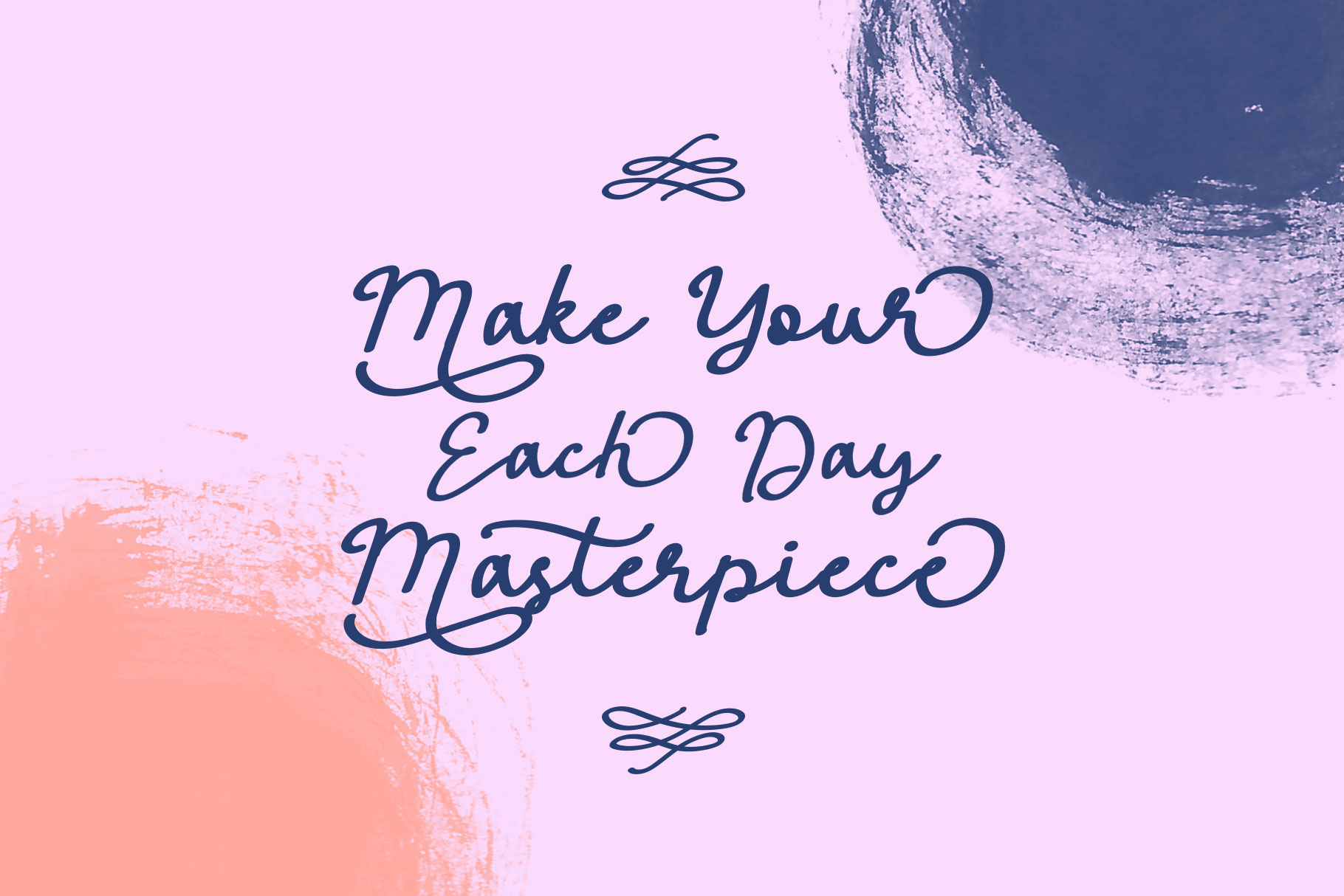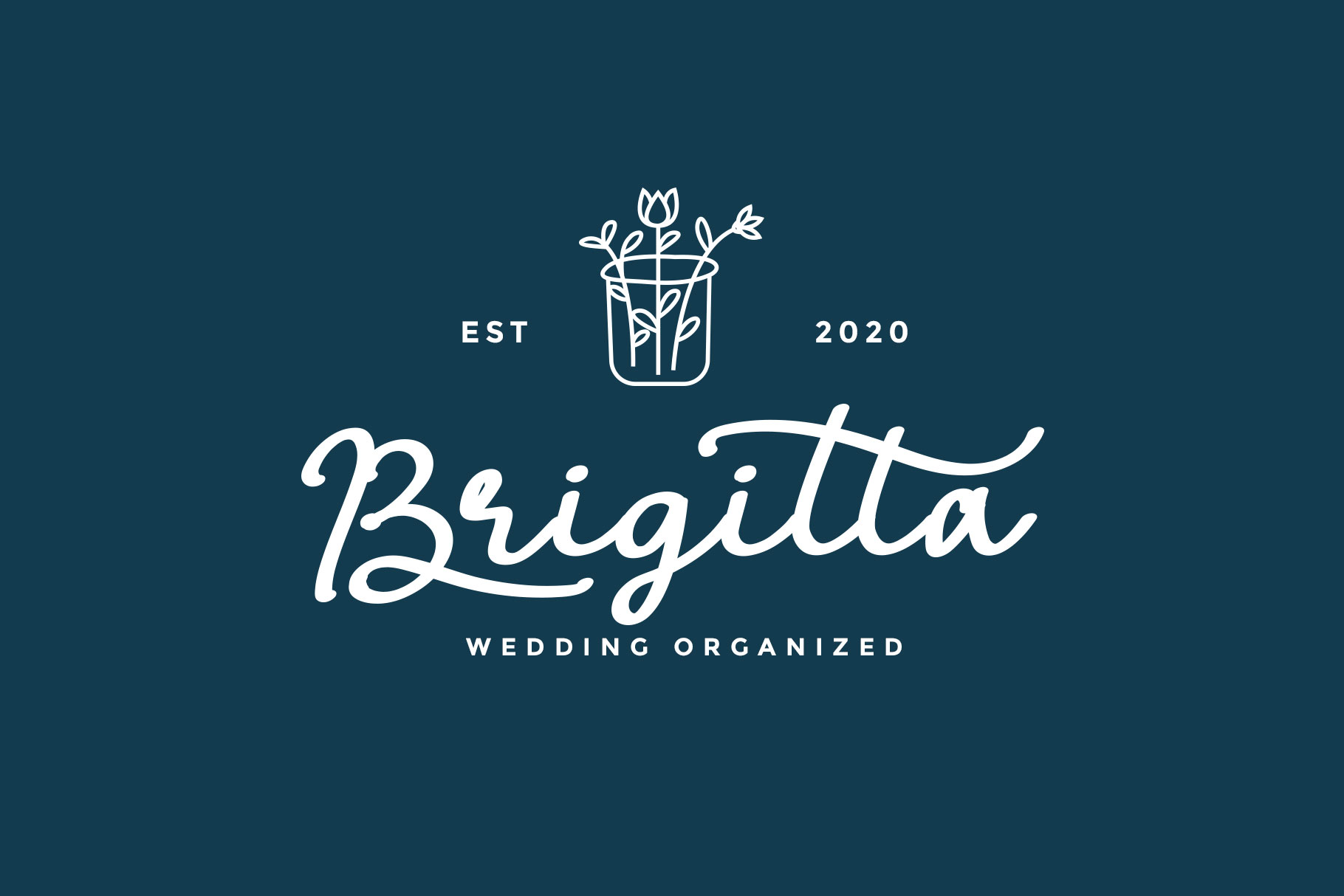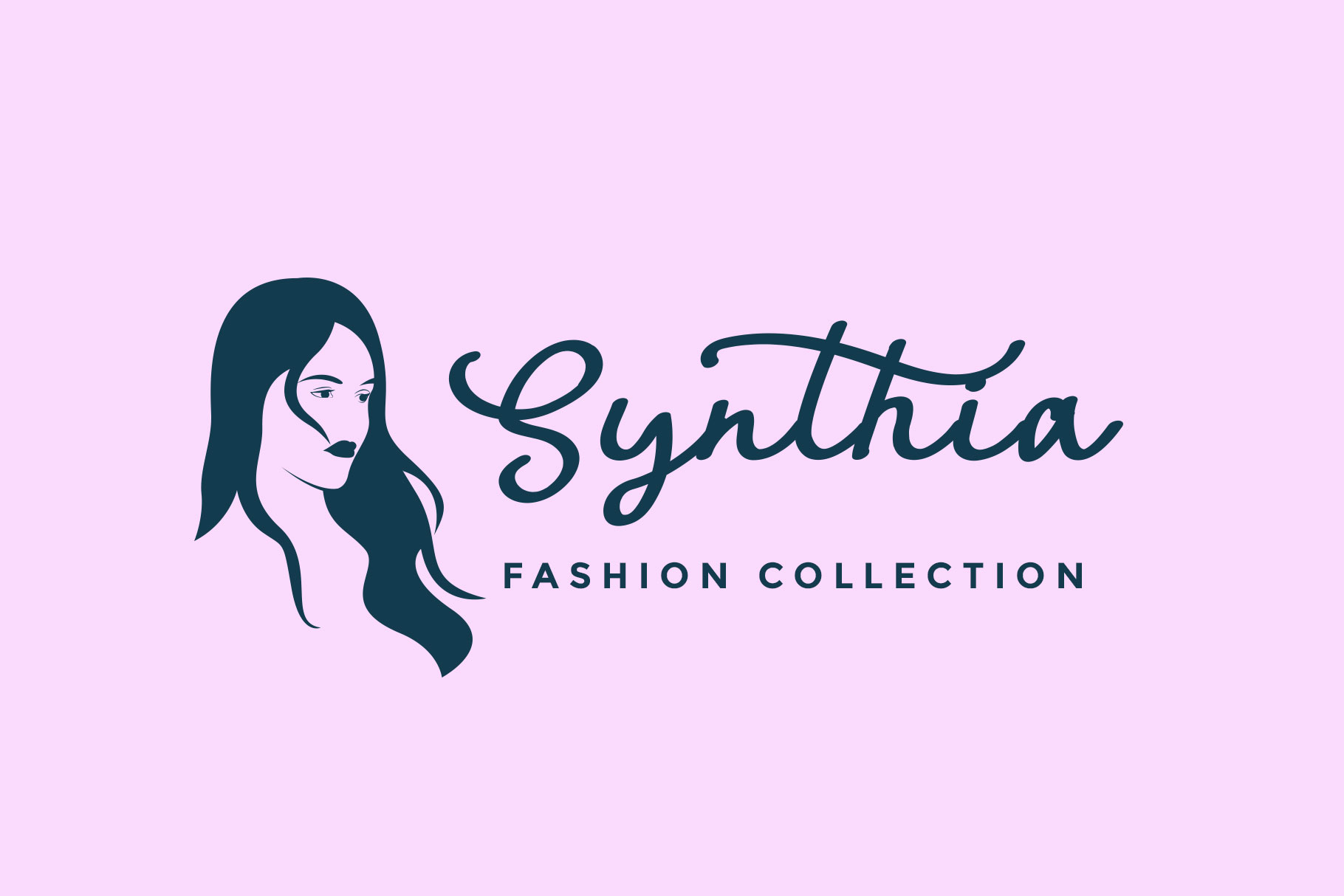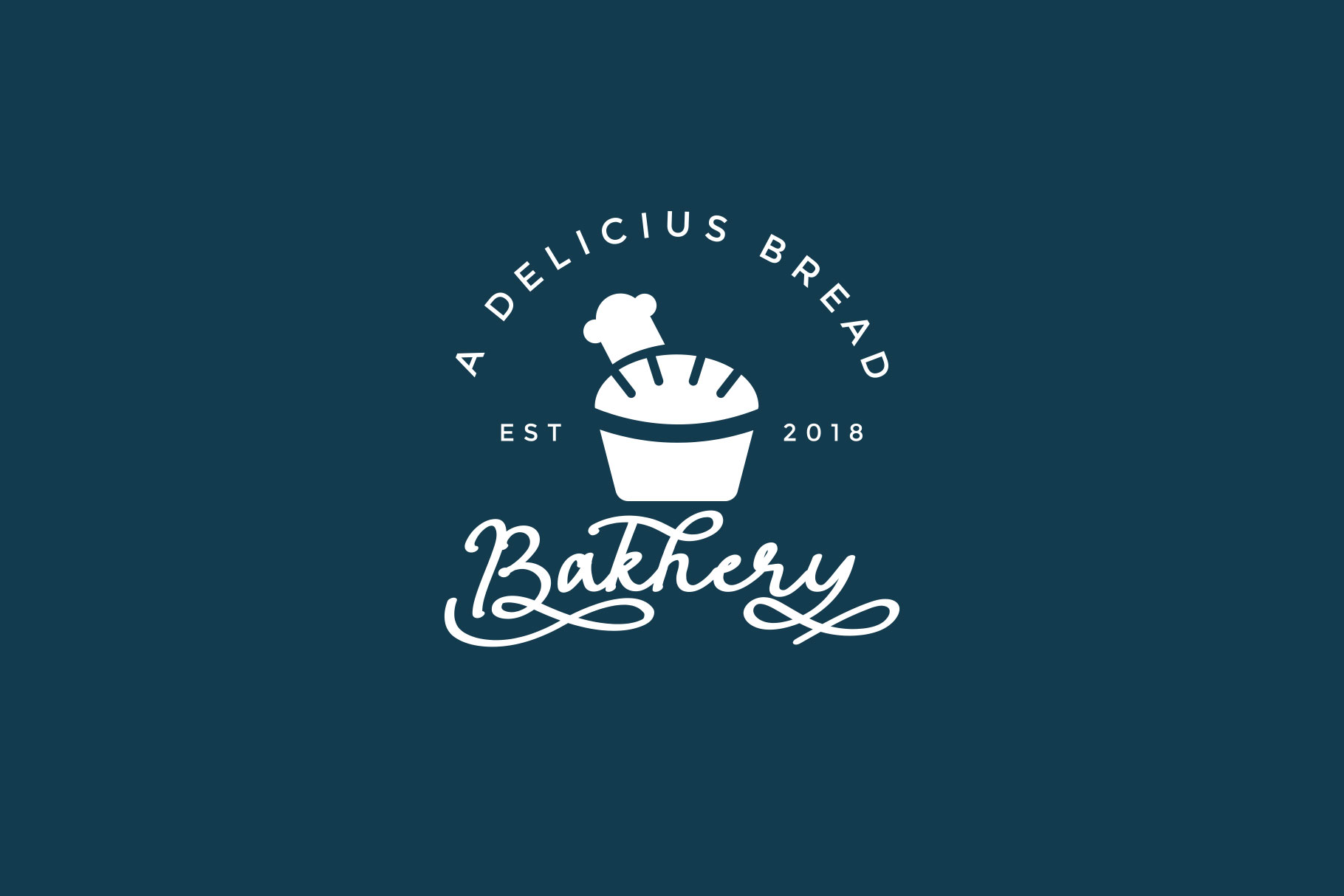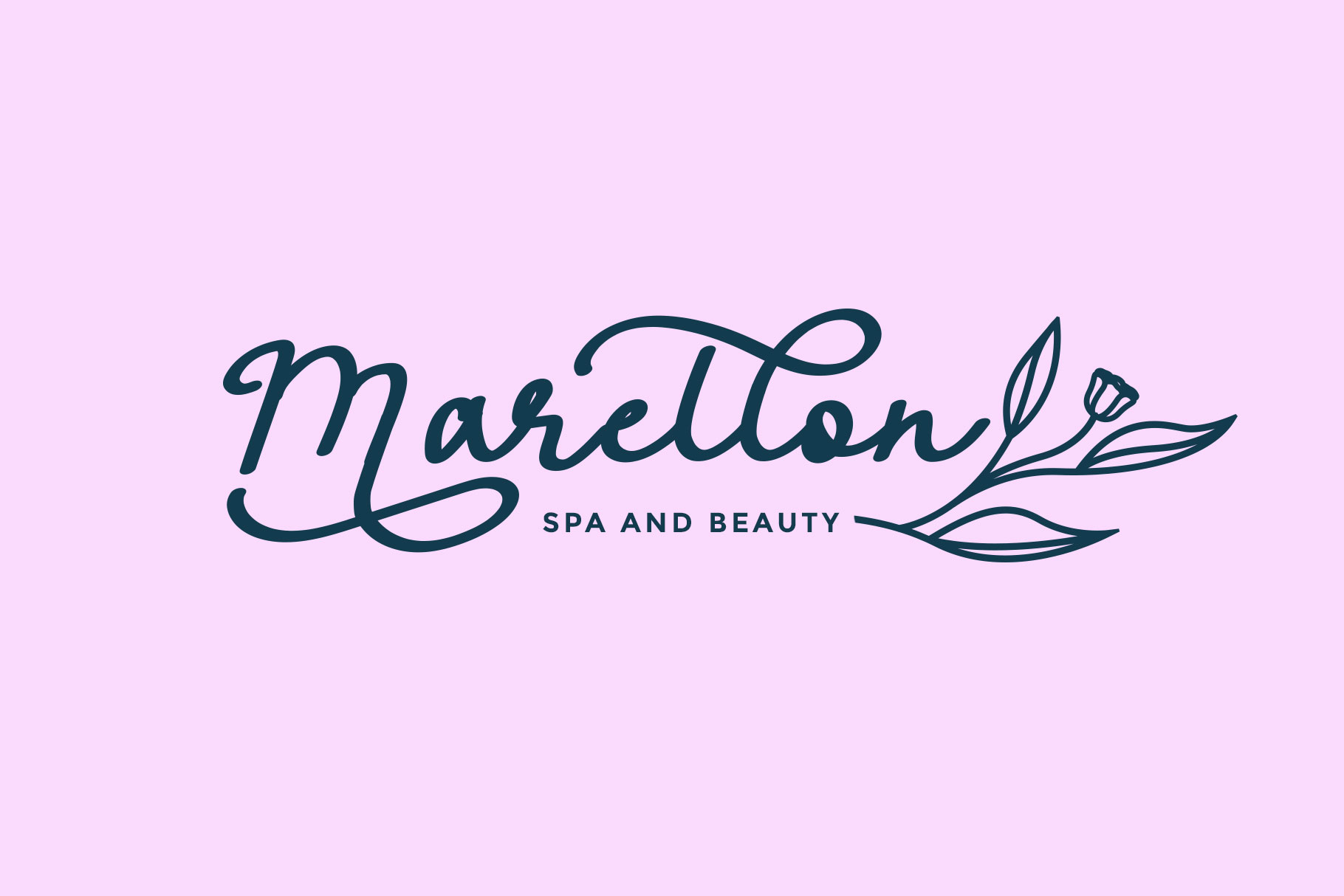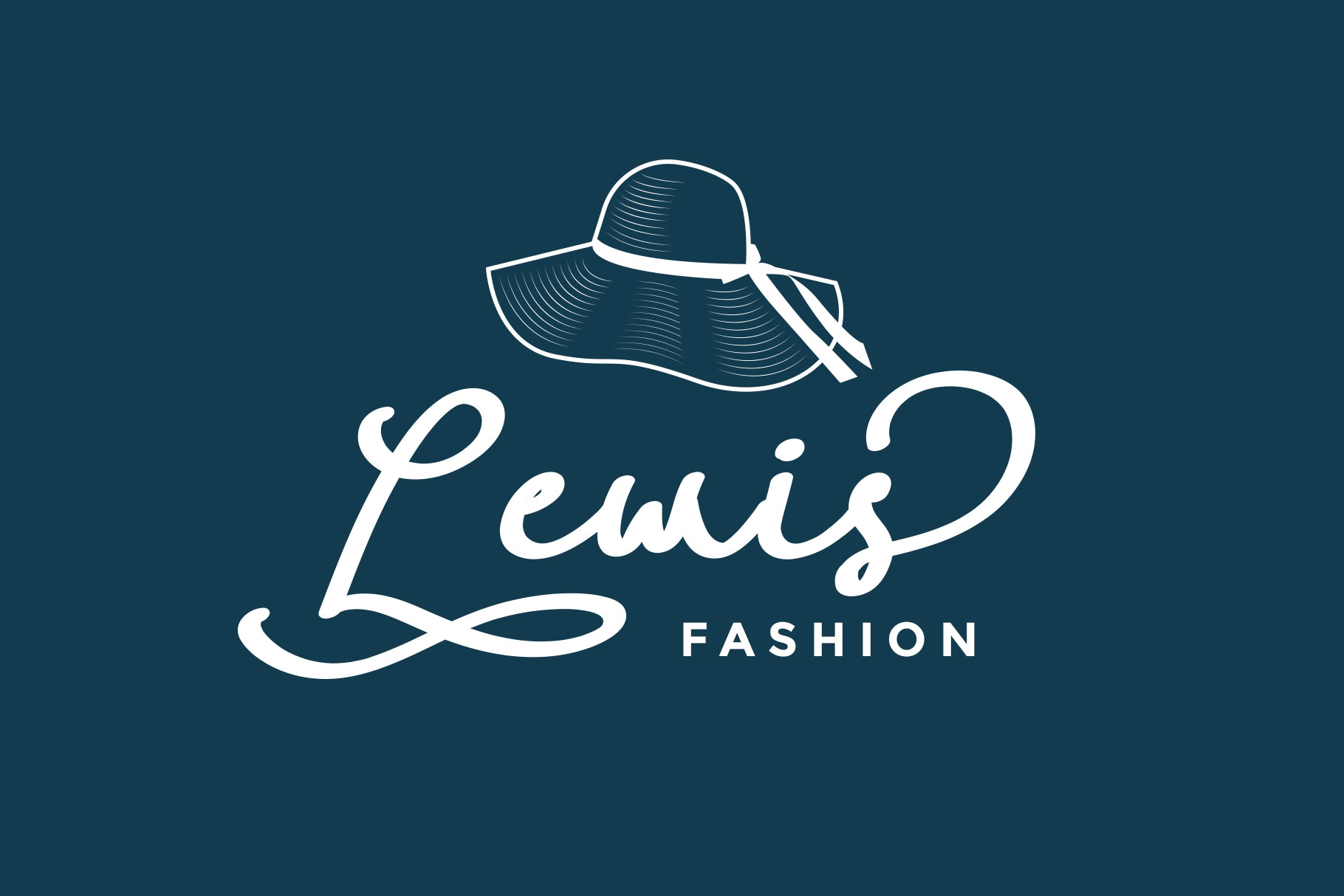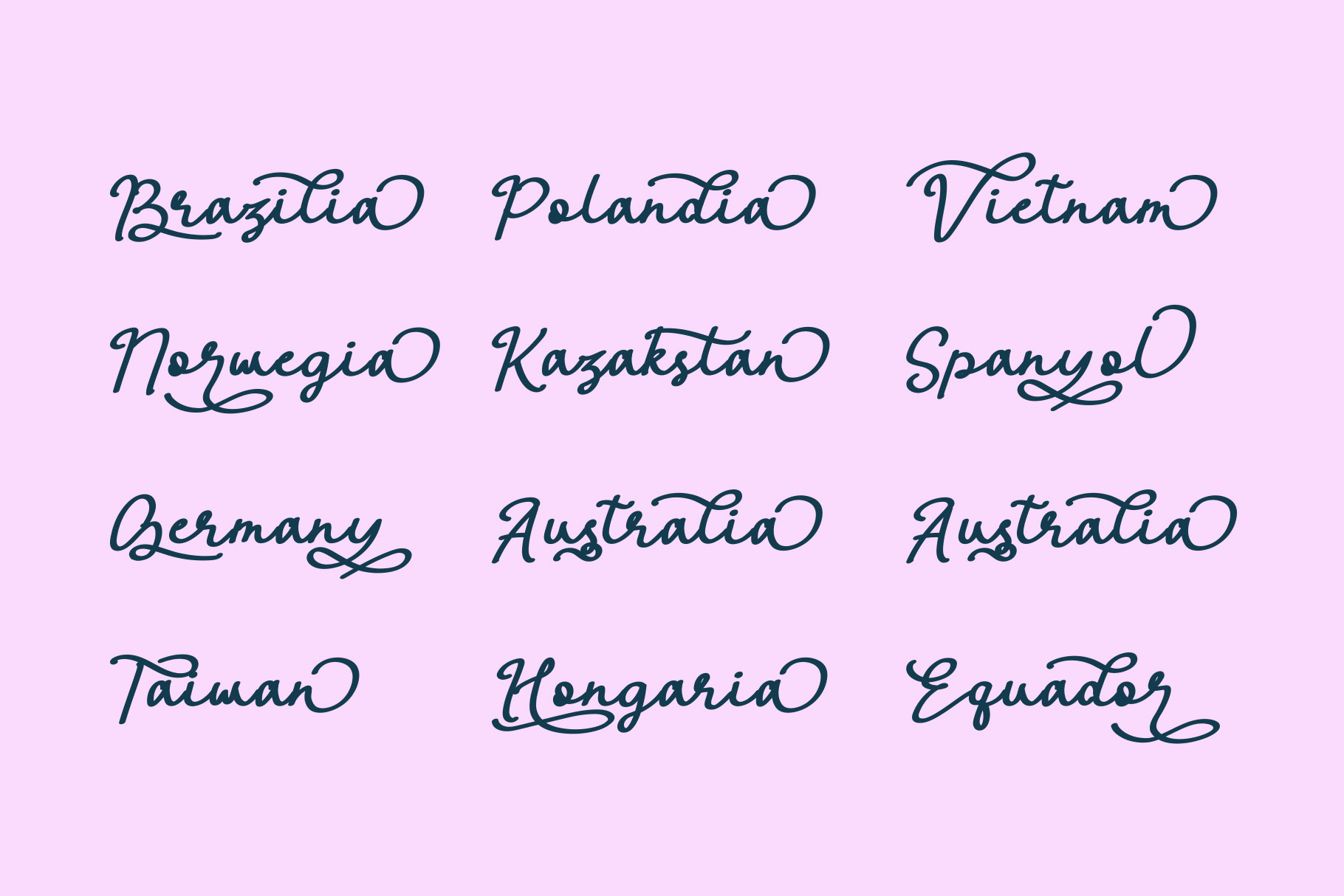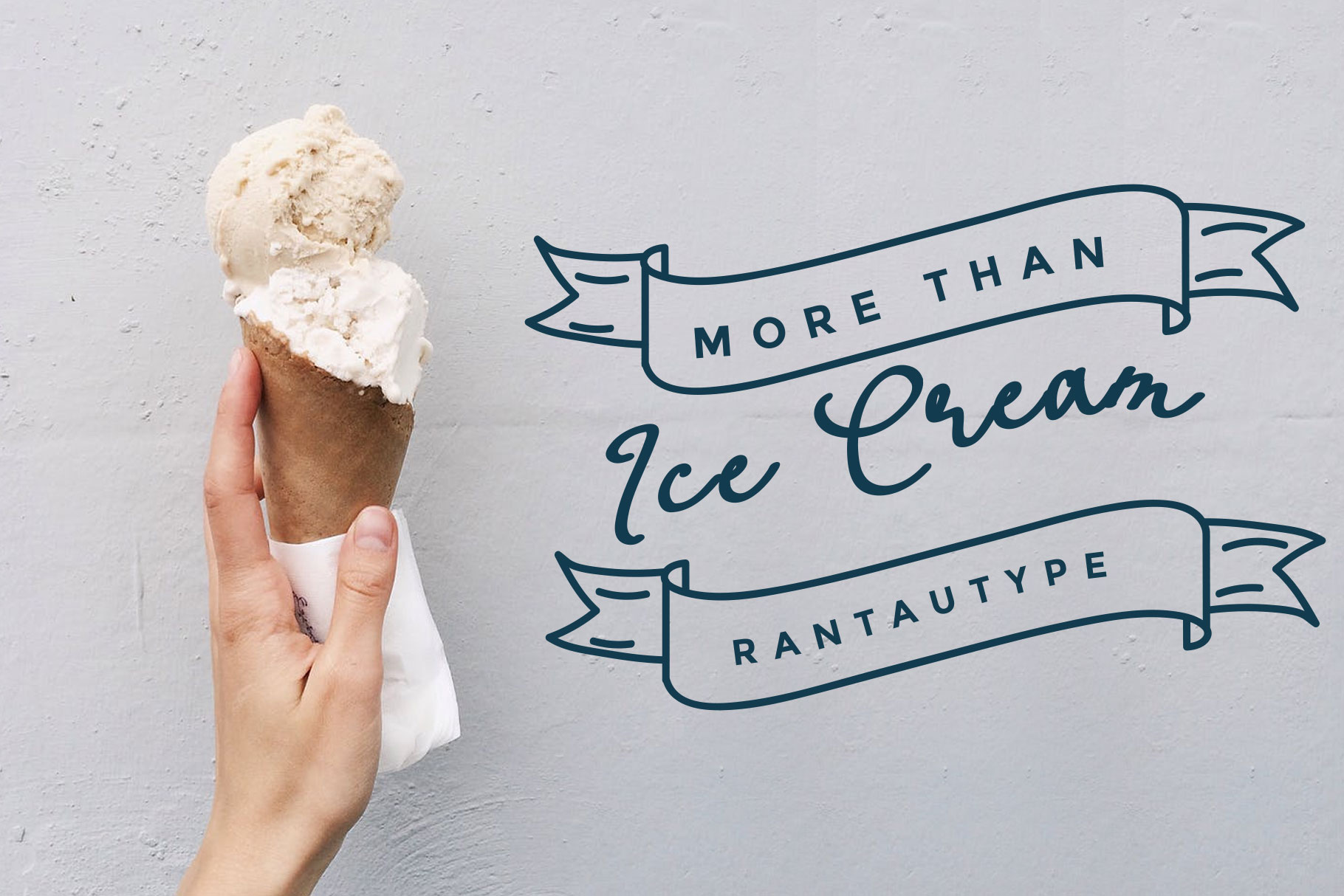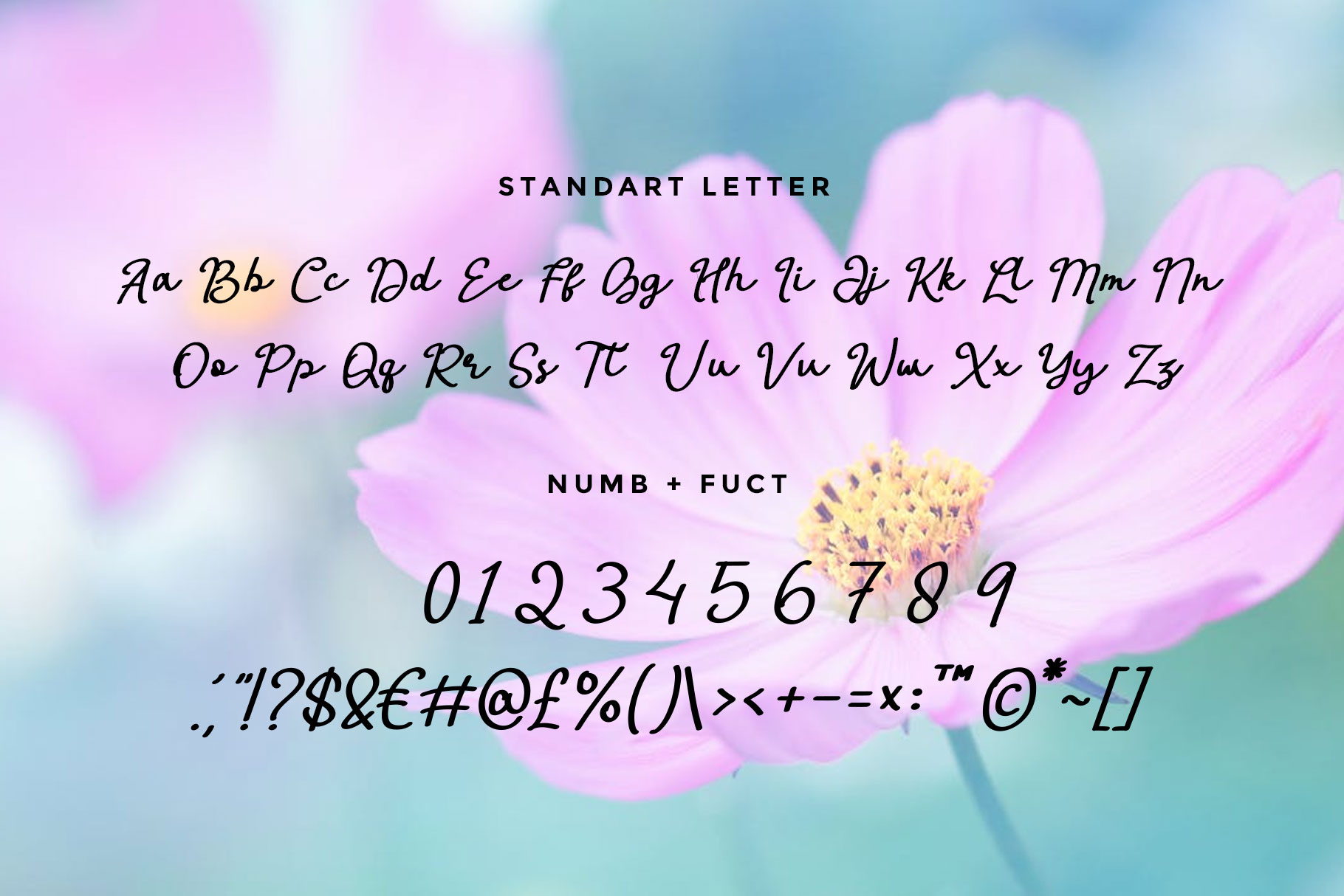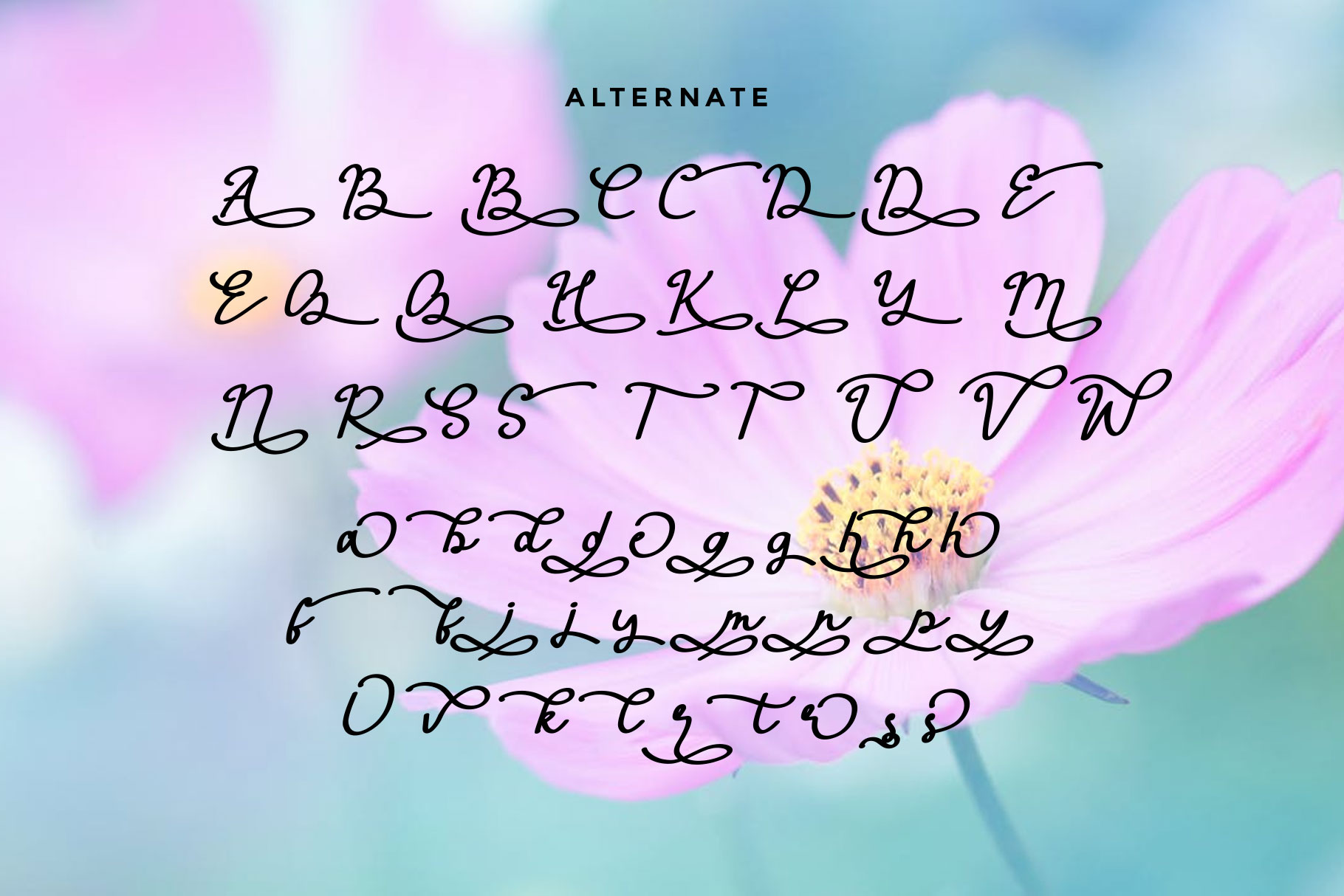
Antha Calligraphy Font
Antha is script  handwritten taken from Greek which means flower, which can be interpreted professional. I keep this font looks elegant, classy, readable, stylish, catchy and easy to use. Antha is the great choice for watermark on photography, signature or signature logo design, quotes, album cover, business card and many other design project.Antha is here to make your work to high level!!!
• Basic Latin A-Z and a-z
• Swashes and Extra